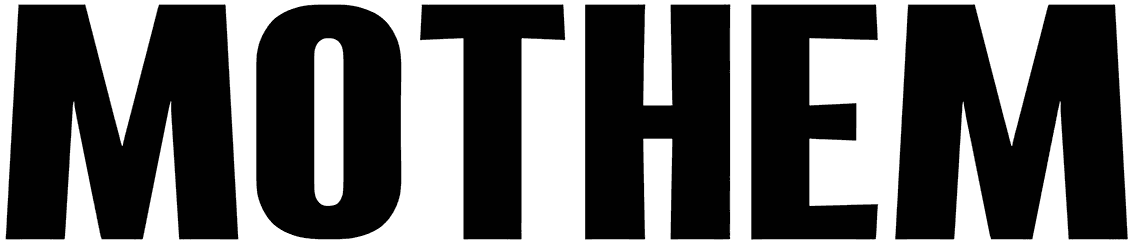
Mothem Font
Solid, reliable, and easy to notice, Mothem seems to have all it takes to appear in your modern branding designs. If only you knew what a great bold font like this can do to your lettering, you wouldn’t have waited another second before downloading it.
It may be missing the lowercase, but so what? What matters is that this sans serif font will be great for editorial company logos, mall websites, financial company names, gym flyers, and everything like that.